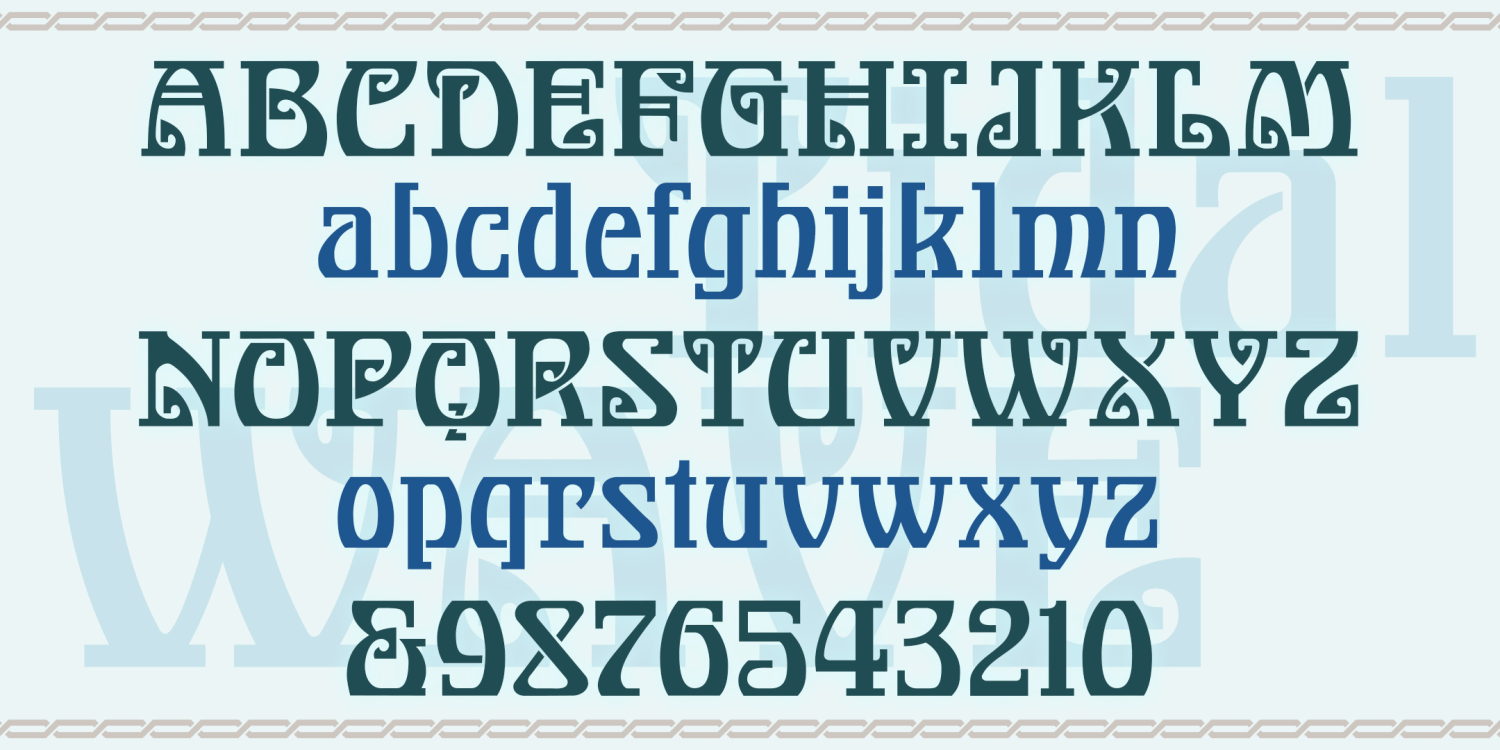
Tidal Wave
TIDAL WAVE is about one third "tribal", one third "groovy", and one third "Art Nouveau" although its roots predate all those design labels. Inspired by examples of lettering from the early 20th century, this style was called "Grecian," must be something about the squarish spirals. Tidal Wave has an exciting look that transcends time and geography.
The Tidal Wave font family includes 206 glyphs.